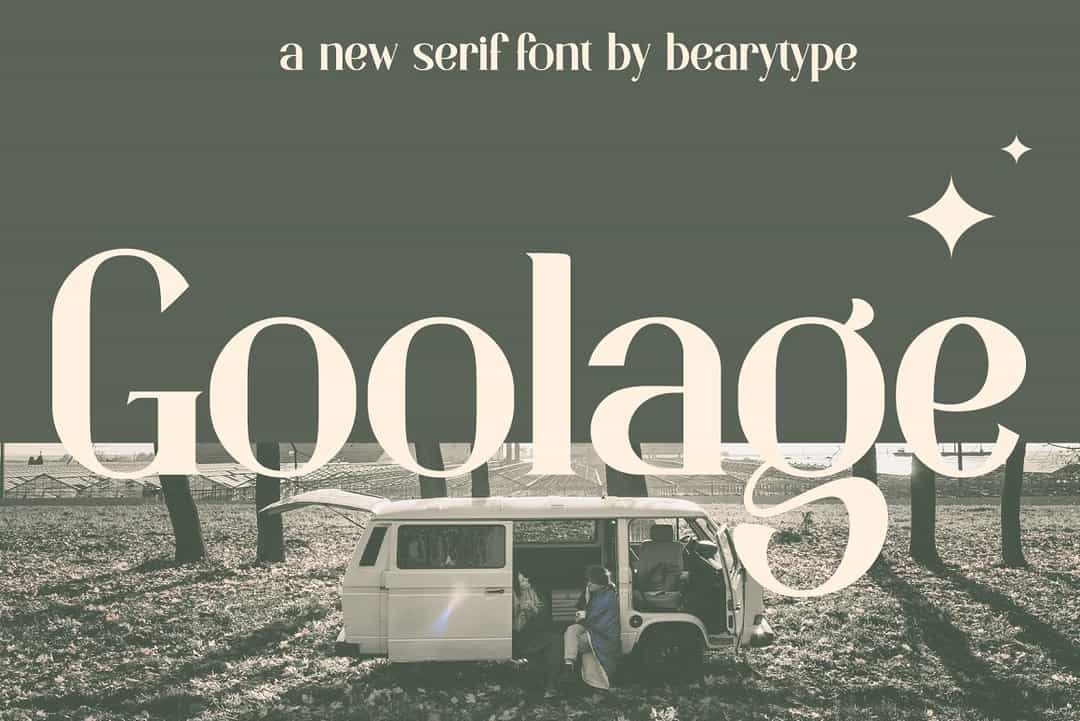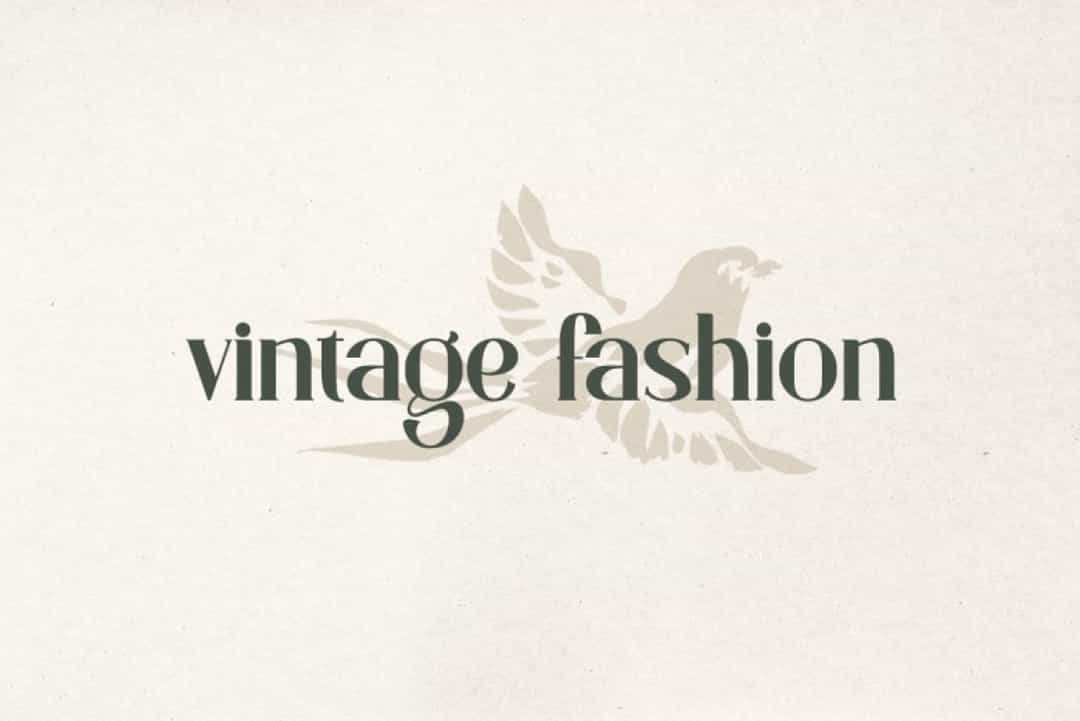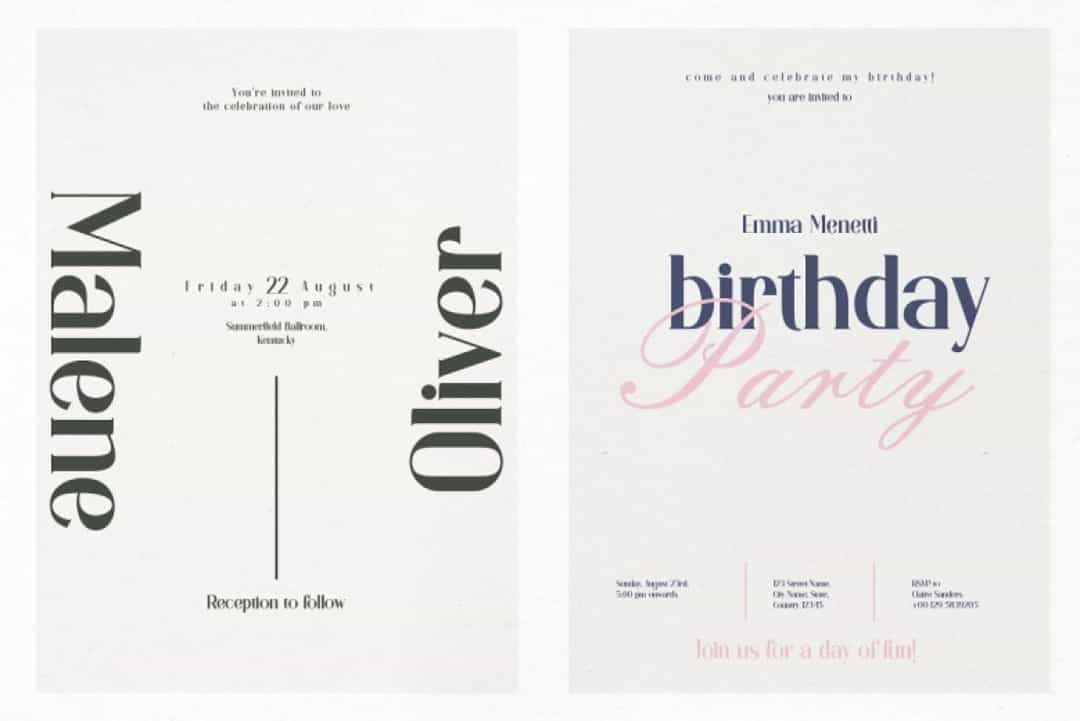
Goolage: Contemporary Serif Font for an Elevated Look! Our newly released font Goolage brings contemporary serif style with elegant features to give any design job an eye-catching, professional finish. Its exclusive features give each project an impressive and classy appearance.